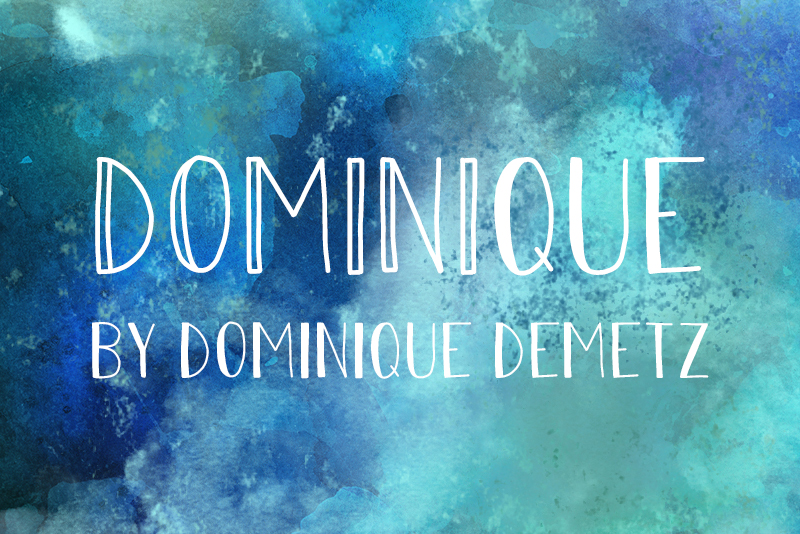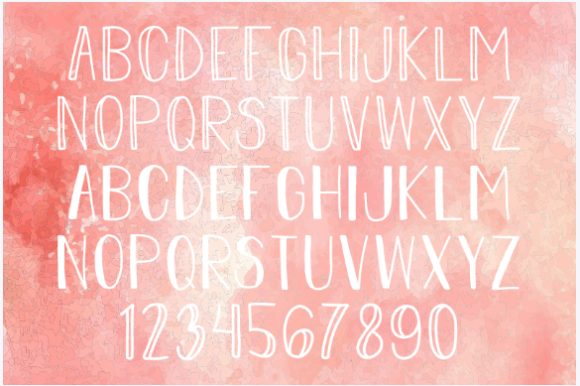
Dominique Font
About Dominique Font
Dominique is a playful handwritten font created by Dominique Demetz.
The Dominique font is clear to read and looks great as a headline. The wobbly letters will give your work a personal feel.